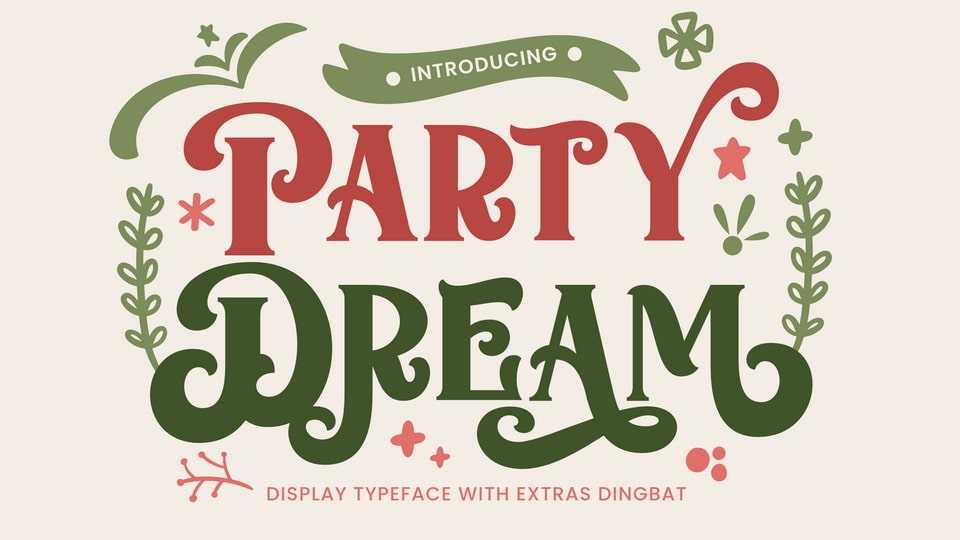
Download Party Dream font, a festive and incredibly classy display typeface. It is ideal for any of your winter break creations so add it to your designs and bring them to life.